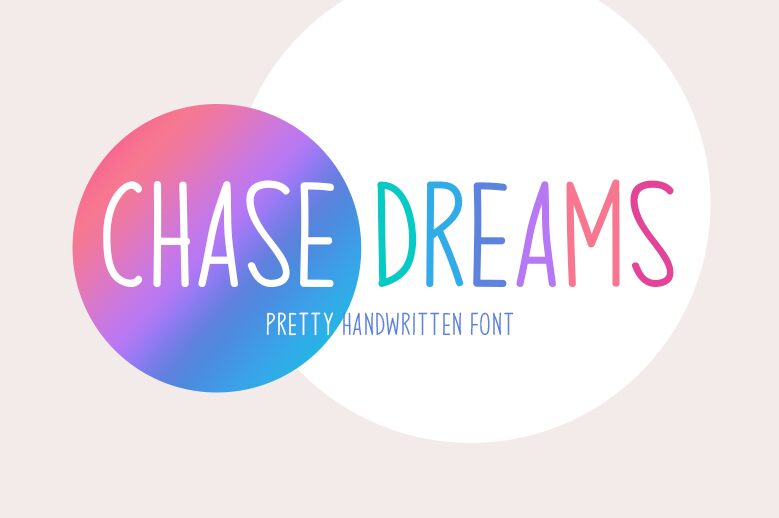
Chase Dreams font, designed by Md Shohail Bhuian, is a captivating handwritten typeface that exudes a personal and artistic charm. Its condensed width offers an elegant and streamlined appearance, perfect for projects needing a touch of sophistication without overwhelming the viewer.
The organic flow and distinct style of this font make it suitable for various creative applications. Ideal for invitations, logos, branding materials, and web designs, Chase Dreams font brings an intimate yet professional feel to every use.